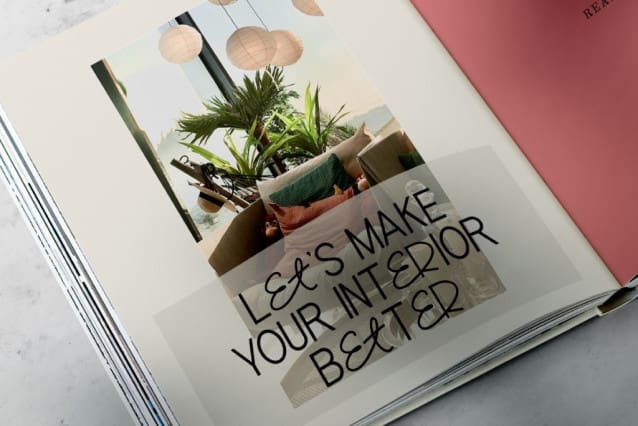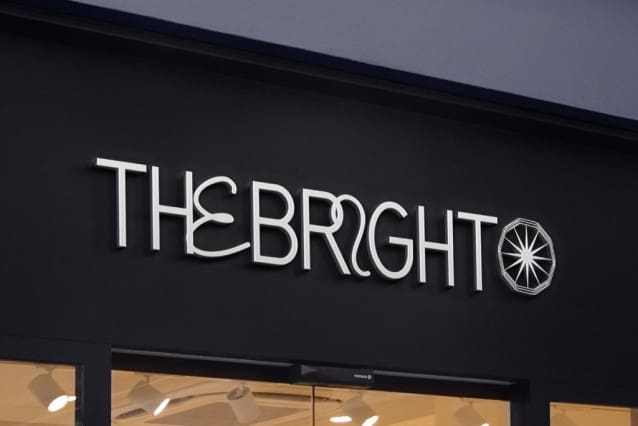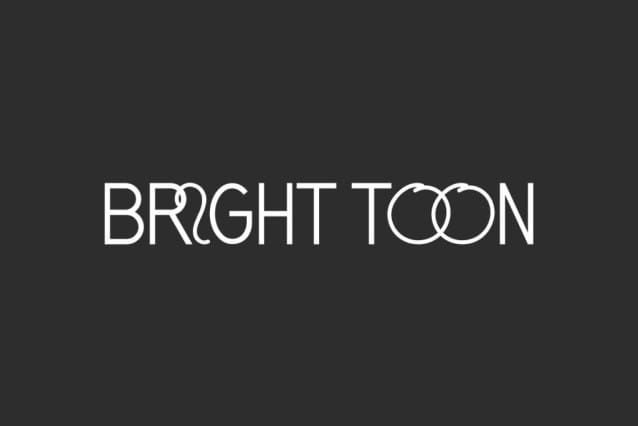
Bright Toon Font
Bright Toon Font is a fun and unique display font duo. The font has combination of Minimalist Serif display and classy signature on its uppercases. This font consists of Script and Sans Serif font types which both have a simple and elegant style. It will suits many designs, such as brand image, custom design, gift box, invitation, label, poster, product packaging, quote, signage, stationery, website, and more!
Bright Toon Font includes complete sets for Uppercase and Lowercase Basic Characters with different looks for both, Numerals, Punctuation, and Symbol. This font include Ligature characters and will be suitable for many industries, such as advertising, beauty product, event or festival, fashion, furniture, jewelry and accessories, photography, resort, restaurant, skincare, etc.